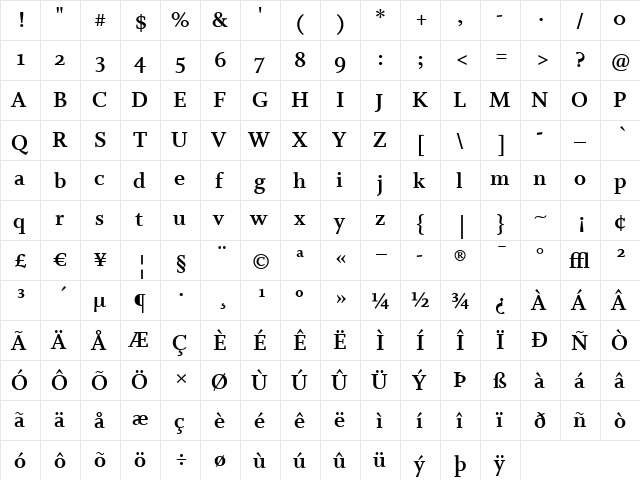
Whitman-BoldOsF Regular
| Foundry | The Font Bureau, Inc |
| Designer | Kent Lew |
Design Context for Whitman-BoldOsF Typeface
Whitman-BoldOsF is a composed and adaptable typeface that performs quietly and consistently across a wide range of design contexts. Its bold stroke weight gives it real presence on the page.